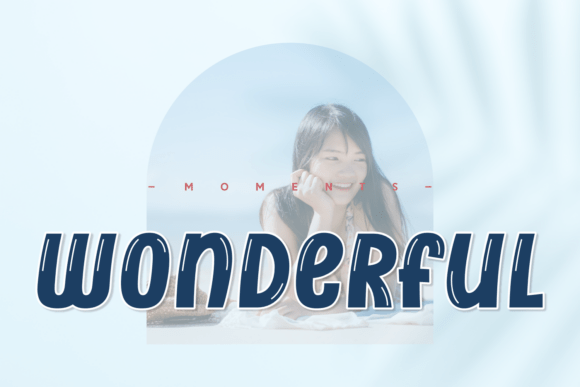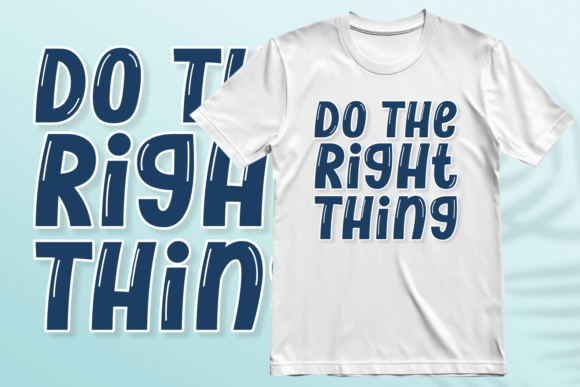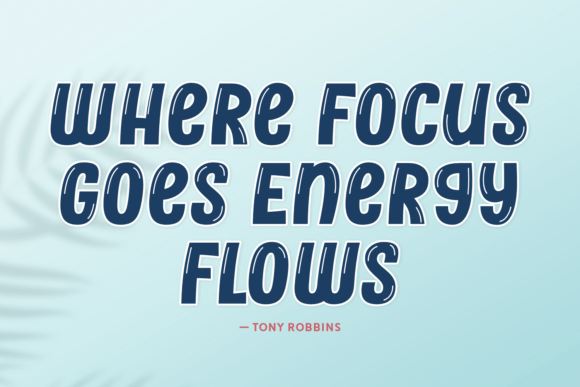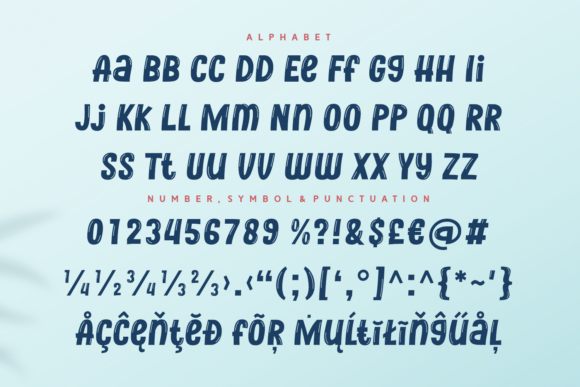
Introducing Enjoy Fresh: The Ultimate Summer Display Font
Ah, the thrill of working on a design project, only to hit a roadblock when it comes to finding the perfect font. I recall a particularly frustrating experience where I was tasked with creating a vibrant summer-themed poster for a client. The brief was simple: make it fun, make it fresh, and make it Instagram-worthy. But, as I scrolled through font after font, I just couldn’t find the right fit. That was until I stumbled upon Enjoy Fresh, an invigorating display font that encapsulates the essence of summer.
The Perfect Font for Your Creative Projects
Enjoy Fresh is a unique font that boasts rounded shapes and a simplistic appeal, making it perfect for a wide range of creative projects. From printing on T-shirts to designing greeting cards or branding projects, this font is sure to add a charming touch to your designs. Its authentic, clean styling brings an element of fun and quirkiness to your creative projects, making it ideal for posters, logotypes, invitations, product packaging, and labels.
My Honest Review of Enjoy Fresh
So, what do I love about Enjoy Fresh? Here are a few highlights:
- ✨ Unique and refreshing design that’s perfect for summer-themed projects
- ✅ Easy to read and understand, even at smaller font sizes
- 🎉 Works exceptionally well for posters, logotypes, and branding projects
- 👍 Highly versatile and adaptable to different design styles
Of course, no font is perfect, and Enjoy Fresh has a few small quirks:
- 🤔 Limited language support, so it’s best used for English or similar languages
- ⚠️ Not suitable for body text or long-form content, as it’s best used as a display font
The Story Behind Enjoy Fresh
Enjoy Fresh was designed with the intention of capturing the carefree spirit of summer. Its creator wanted to craft a font that would evoke feelings of warmth, happiness, and relaxation. With its rounded shapes and simplistic appeal, Enjoy Fresh is the perfect font for designers looking to add a touch of summer fun to their projects.
| Font Name | Enjoy Fresh Font |
| Author | Hendrik (7NTypes) |
| What type of projects is Enjoy Fresh best suited for? | Enjoy Fresh is perfect for display purposes, such as posters, logotypes, invitations, product packaging, and labels. |
| Can I use Enjoy Fresh for body text or long-form content? | No, Enjoy Fresh is best used as a display font and may not be suitable for body text or long-form content. |